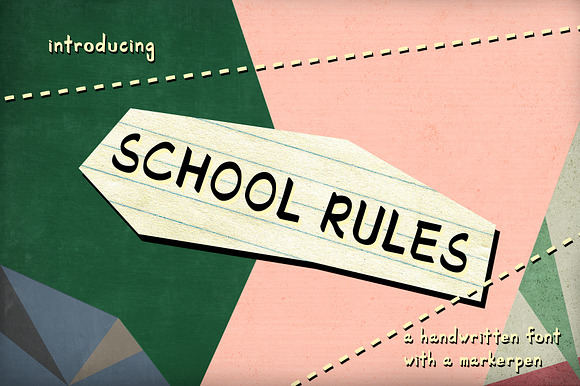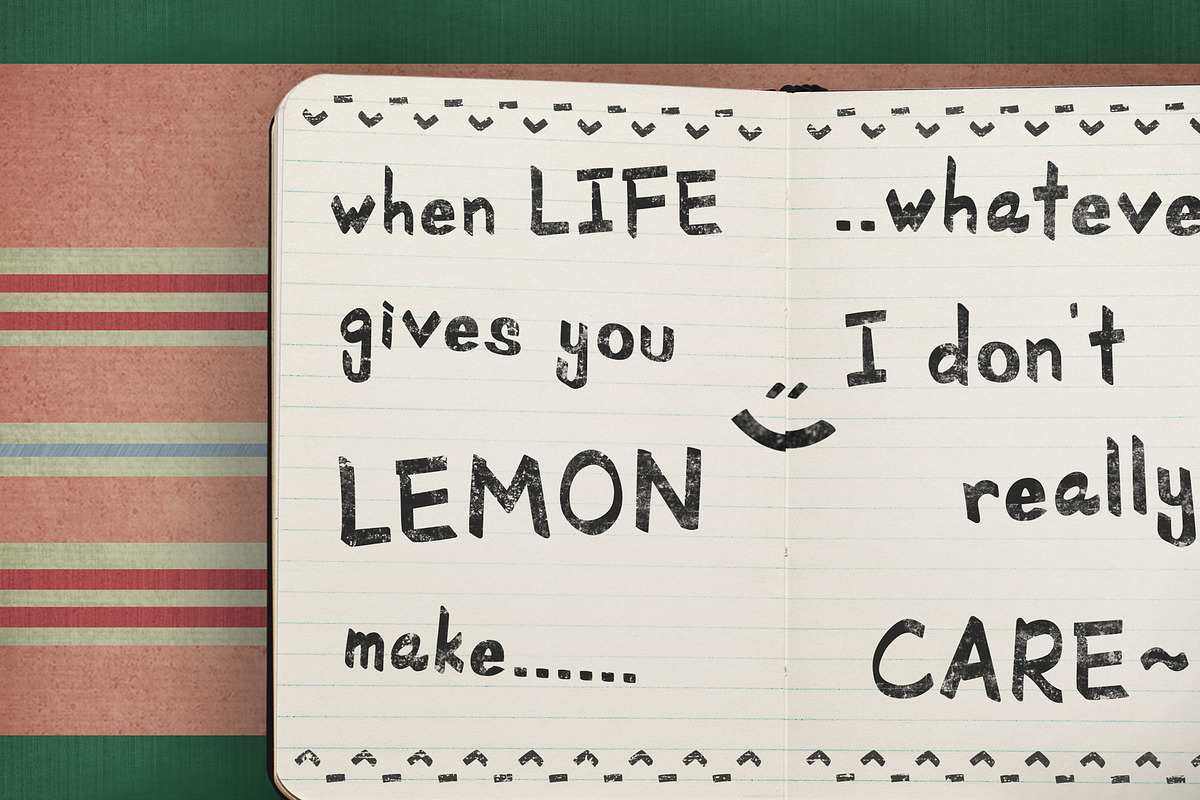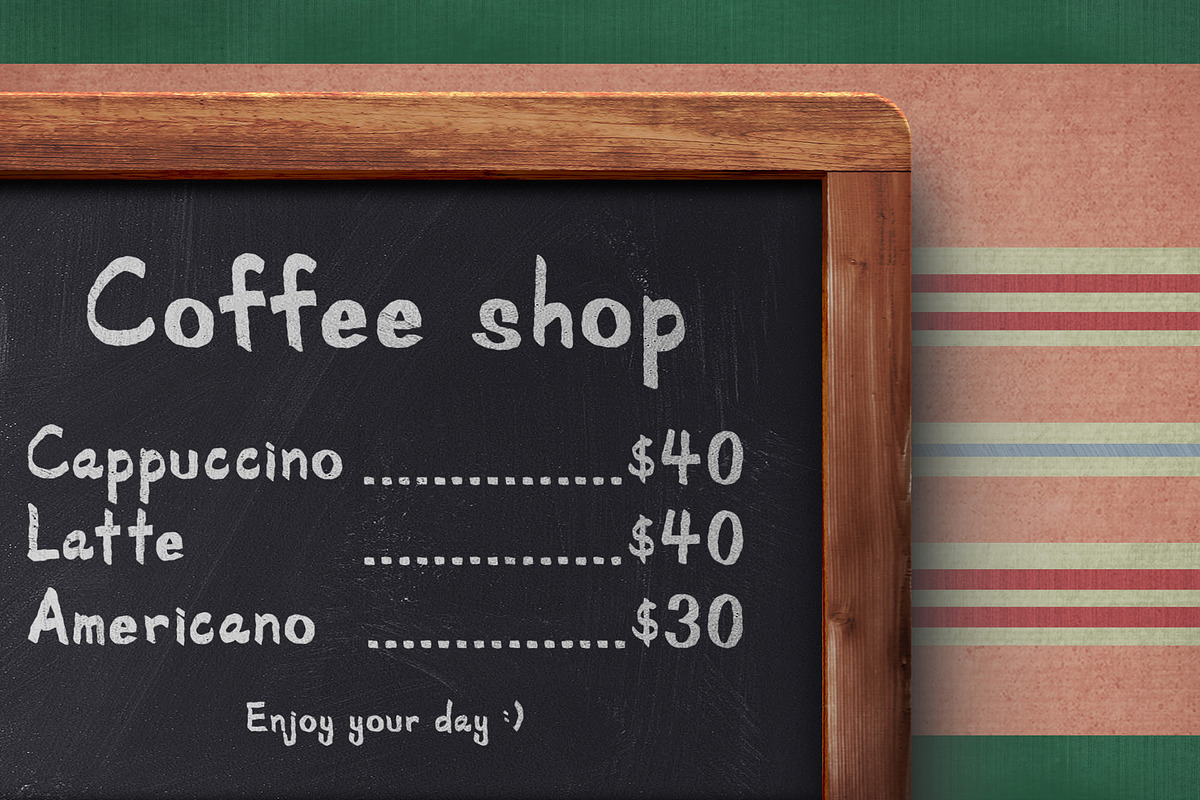
School Rules - a handwritten font
A handwritten font made with a marker pen.
Why School Rules - a handwritten font is worth a look
School Rules - a handwritten font by white supply fits naturally into Branding, posters, packaging, typography.